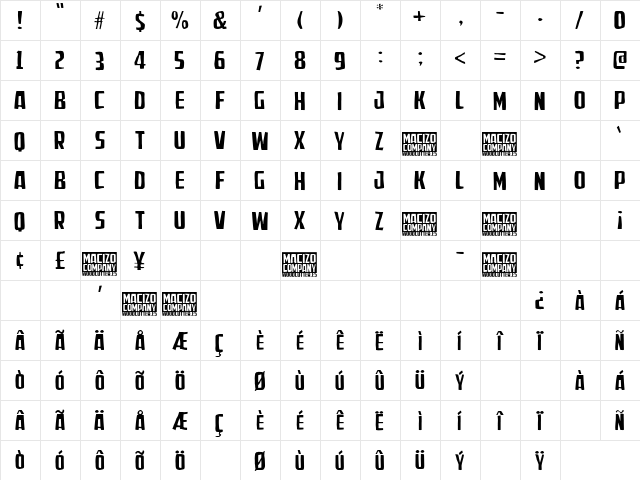
Macizo Company Regular Font Preview
Macizo Company Regular
Design Context for Macizo Company Typeface
Macizo Company is a composed and adaptable typeface that performs quietly and consistently across a wide range of design contexts.